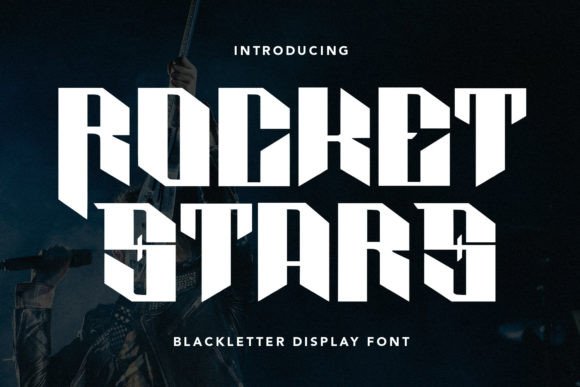
Welcome to the realm of typography, where letters dance and words ignite imaginations! As you embark on your creative journey, allow Rocket Stars, the blackletter font masterpiece, to guide you through a universe of impactful designs. This awe-inspiring font, brought to life by the visionary Maulana Creative, is not just a collection of characters; it's a symphony of power and authority, demanding attention with its bold, commanding presence.
Rocket Stars is more than just a font; it's a statement. Its imposing characters and strong lines are like thunderbolts, leaving an indelible mark on your designs. Unleash the potential of headlines, titles, and logos that radiate strength and ignite curiosity. Let Rocket Stars be your beacon, leading your creations to new heights of visual impact.
But Rocket Stars isn't just about brute force; it's about finesse too. Its PUA encoding opens the door to a treasure trove of delightful glyphs and swashes, allowing you to add intricate details and flourishes that elevate your designs to new levels of sophistication. Whether you're a seasoned designer or just starting your creative journey, Rocket Stars is the perfect companion, ready to transform your ideas into unforgettable visual experiences.
Picture the sheer magnetism of your designs as they leap off the screen, captivating audiences with their bold, commanding presence. Rocket Stars is the key to unlocking a world of design possibilities, where every letter carries weight and every word commands attention. Embrace the power of Rocket Stars, and let your creativity soar to new heights!
In a world saturated with digital noise, standing out is the key to success. Rocket Stars is your secret weapon, the font that cuts through the clutter and leaves an indelible mark on your audience. Its bold, commanding presence will make your designs impossible to ignore, ensuring that your message is heard loud and clear.
With Rocket Stars, you hold the power to create designs that resonate with your audience on a deeper level. Its strength and authority will speak directly to their emotions, igniting a fire of engagement and leaving a lasting impression. Experience the transformative power of Rocket Stars today and witness the birth of designs that command attention and captivate hearts.